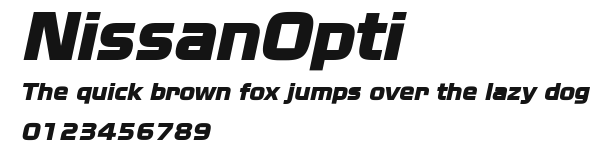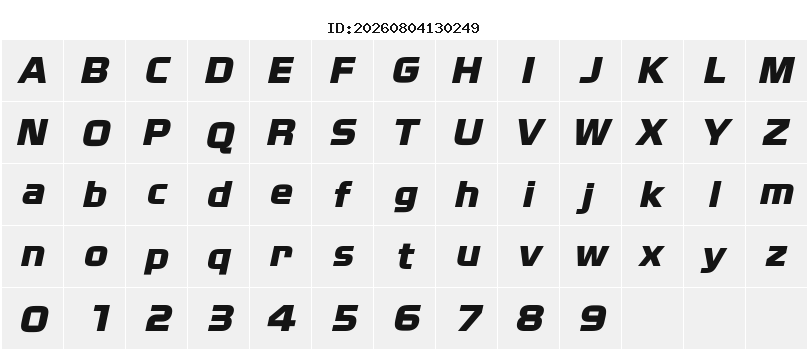
• Font Name: NissanOpti
• Full Font Name: NissanOpti-Italic
• PostScript Name: NissanOpti-Italic
About NissanOpti.ttf
NissanOpti.ttf is a modern, elegant sans-serif font designed for ultimate readability and visual harmony. Perfect for branding, headlines, web design, and print materials.